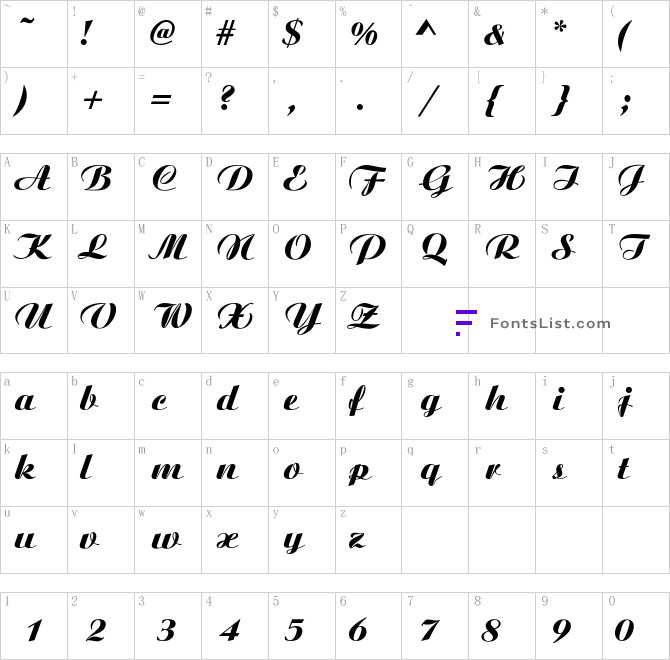
- Font Name:Ariston-Normal-Italic
- Full Name:Ariston-Normal-Italic
- PostScript:Ariston-Normal-Italic
Ariston-Normal-Italic-copy-1-.ttf is a very beautiful artistic font, Ariston-Normal-Italic-copy-1-.ttf is widely used in the design and printing of various books and pictures,Ariston-Normal-Italic-copy-1-.ttf has a strong visual impact,Ariston-Normal-Italic-copy-1-.ttf is a commonly used font in newspapers, magazines and books, and is used in posters, e-commerce Poster design, store design, logo design, font design and other fields.Ariston-Normal-Italic-copy-1-.